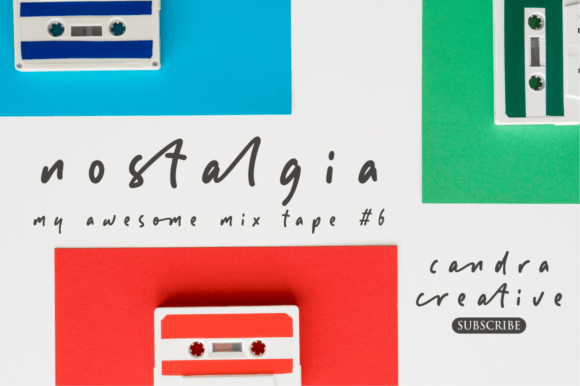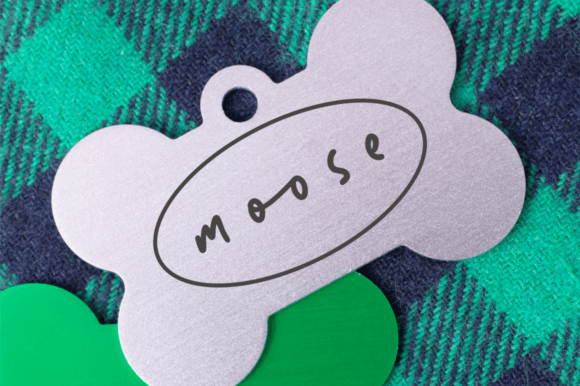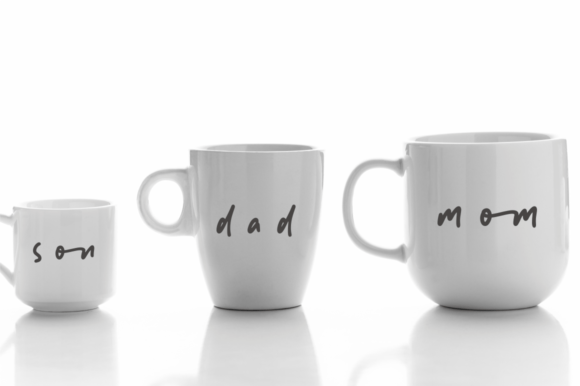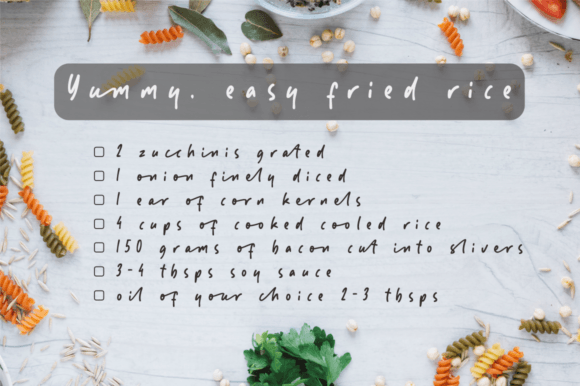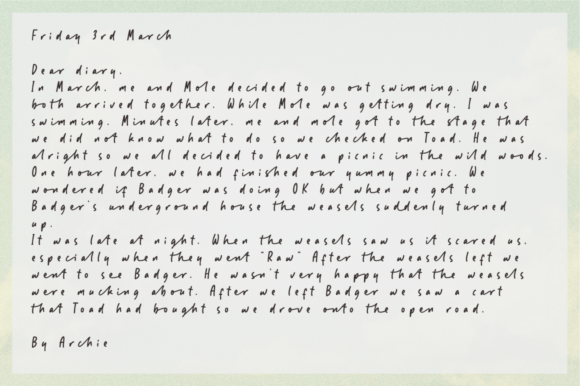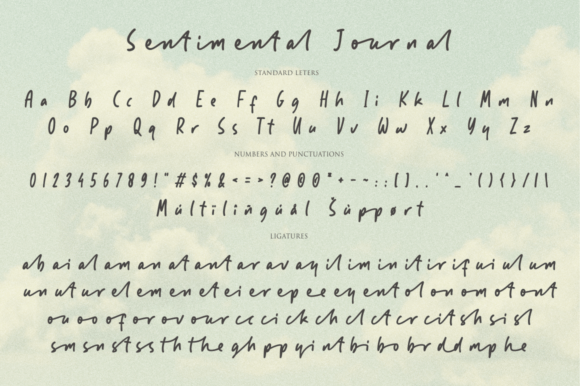
Introduction to Sentimental Journey Font
Introducing Sentimental Journey, a captivating handwritten font that seamlessly blends style and functionality, ideal for adding charisma to your design projects.
Known for its finely detailed ligature characters, every glyph within this font comes PUA-encoded, delivering an authentic touch to your designs Sentimental Journey is a versatile font that breathes fresh life into varied platforms – from vector designs and social media posts to digital wedding blogs and online boutiques.